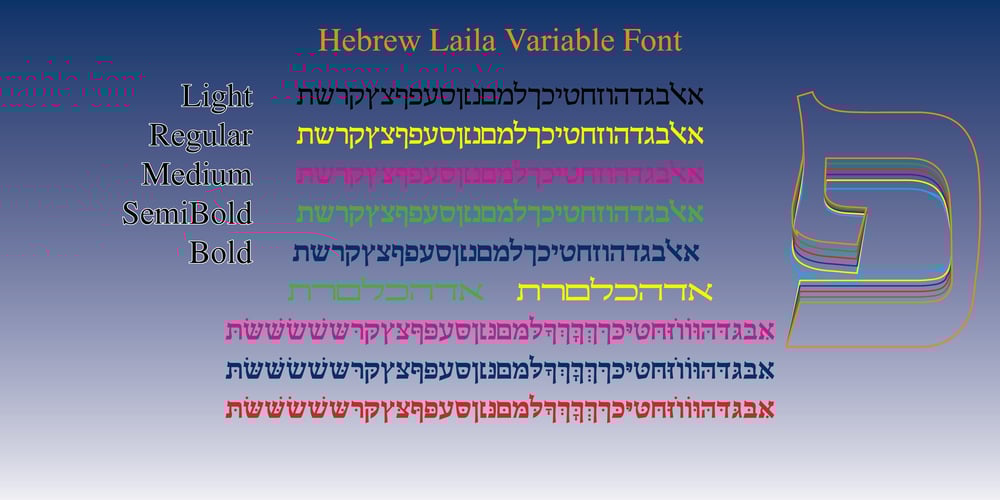
Hebrew Laila VF Tanach
Hebrew Laila VF Tanach font
Hebrew Laila VF Tanach Font Family was designed by Sami Artur Mandelbaum and published by Samtype. Hebrew Laila VF Tanach contains 1 styles and family package options. This is a modern, wonderful, and beautiful font.Now in a variable version.This font is super readable and can be used in Posters and a Hebrew Bible.The readability of this font is amazing.This font has modern Hebrew punctuation: Shevana, Kamatz Katan, Dagesh Hazak, and Cholam Chaser.